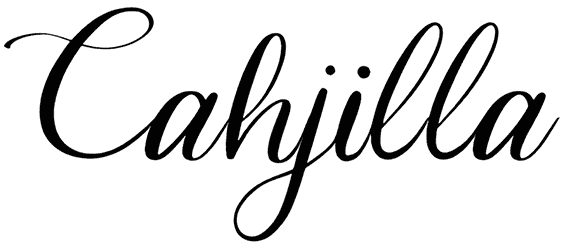
Cahjilla Font
Wishing a luxury script font to set the decorative displays on the best of terms is not out of the question. Thanks to our website, the Cahjilla, a calligraphy font with a curly body embellished with a sweet surrounding, is willing to extend your selection mode in a friendly and warm vibe.